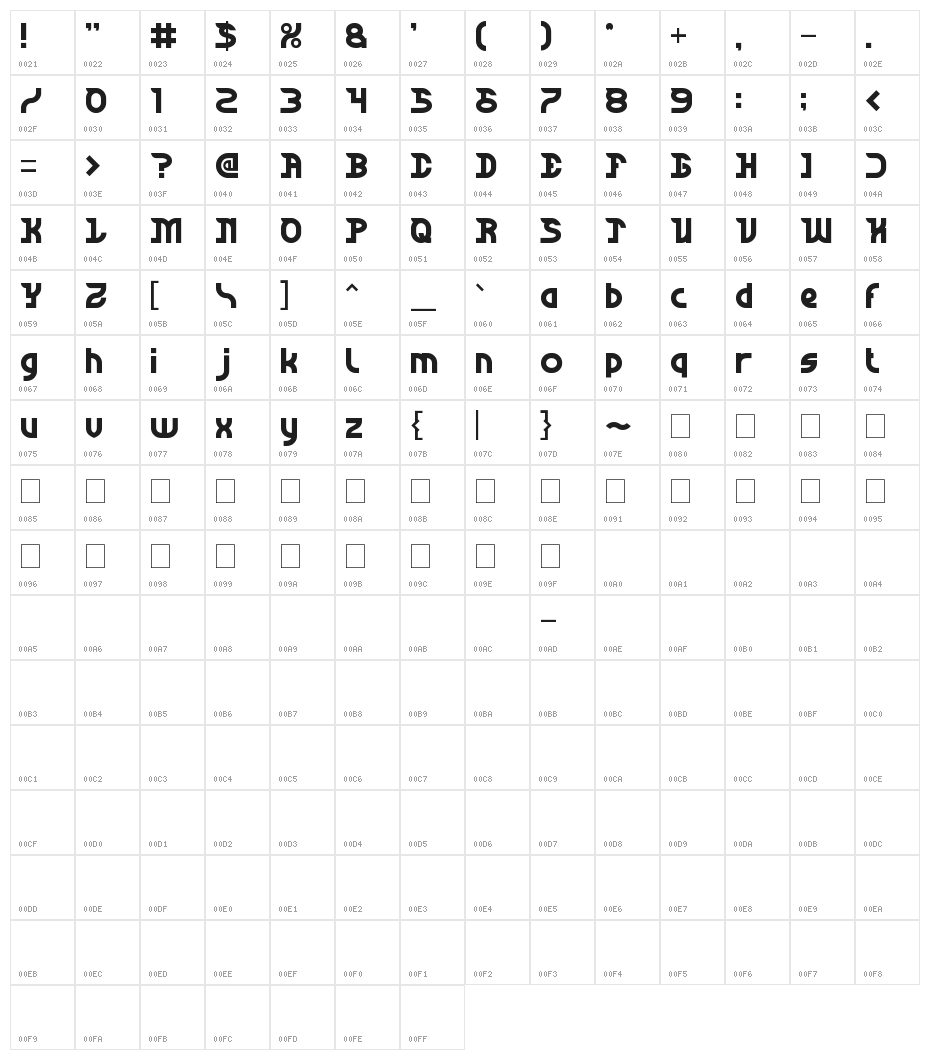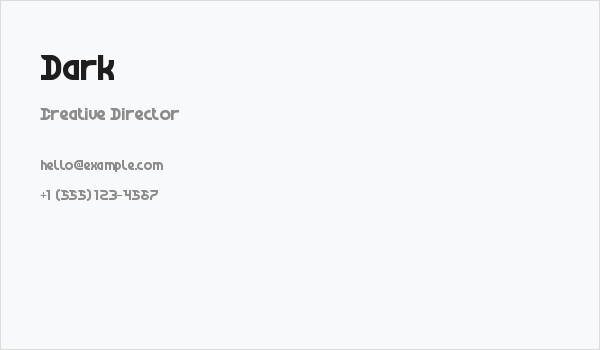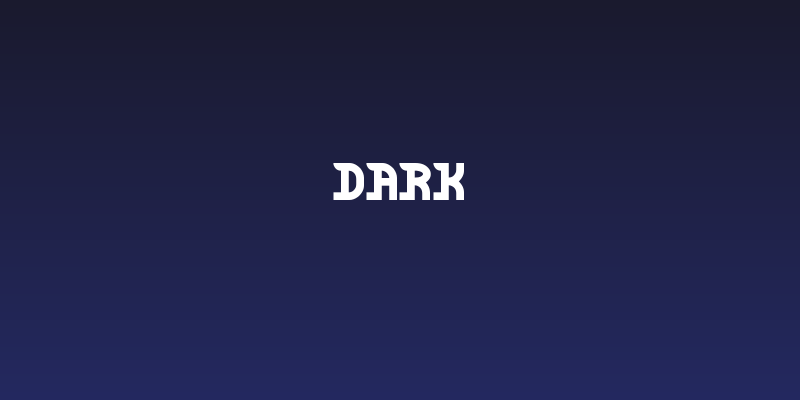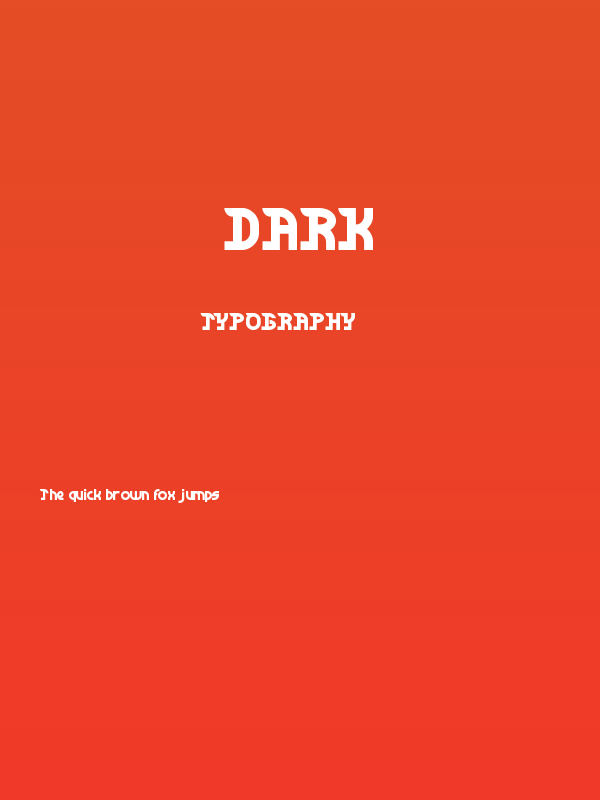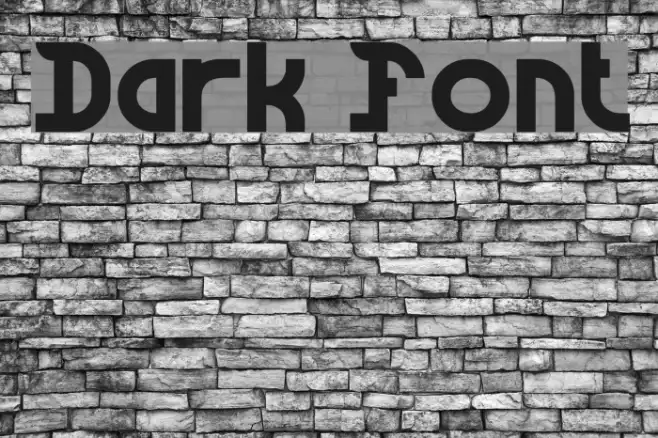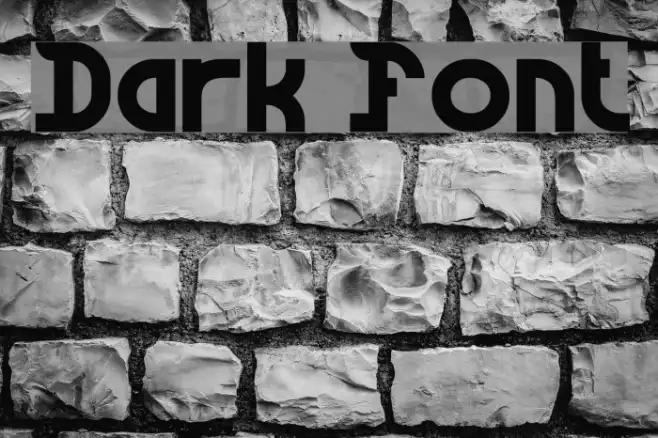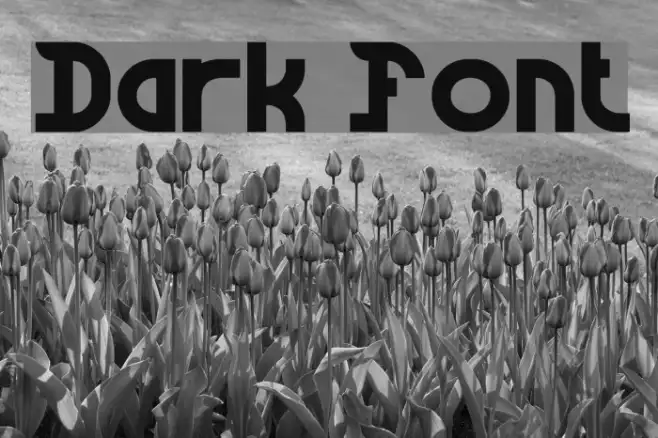
Dark Font
Dark Description
This font features a bold and geometric design with a strong presence. The characters are constructed with thick, uniform strokes that create a sense of solidity and modernity. The uppercase letters have a distinct block-like appearance, while the lowercase letters maintain a rounded, cohesive look. The numerals are consistent with the overall style, offering a clear and bold presentation. Special characters are designed to match the robust and contemporary aesthetic, making this font suitable for impactful and attention-grabbing designs.
| Proposed Projects | Ideal for branding, posters, headlines, and any project requiring a strong visual impact. |